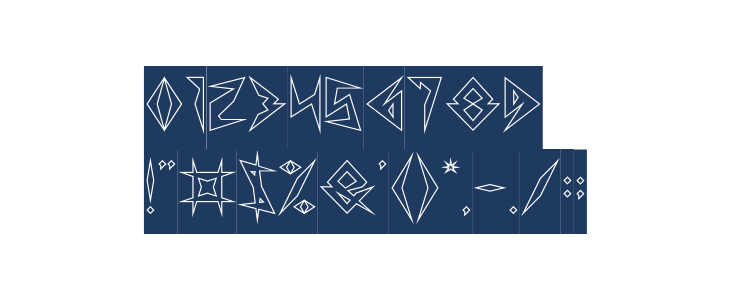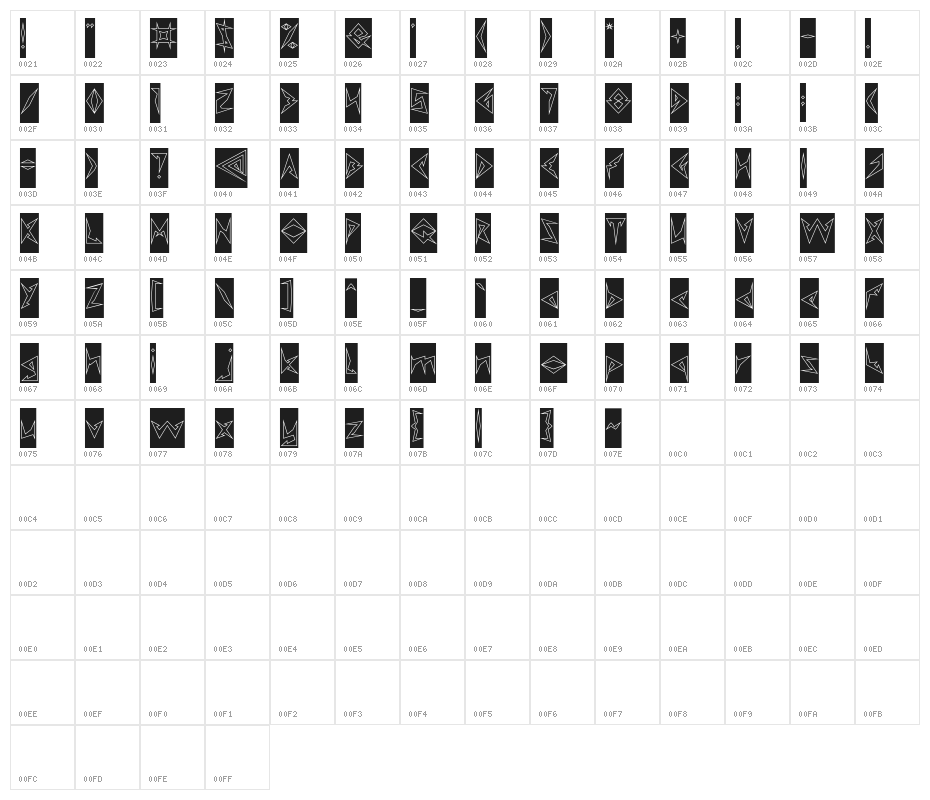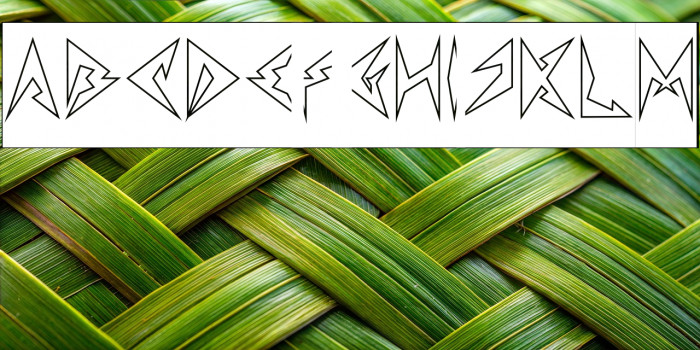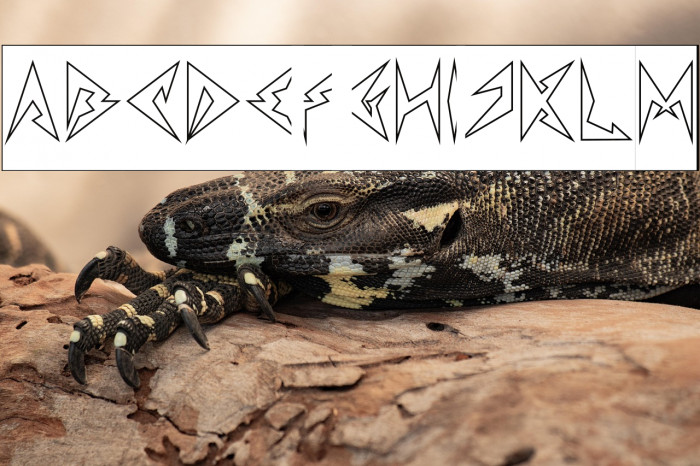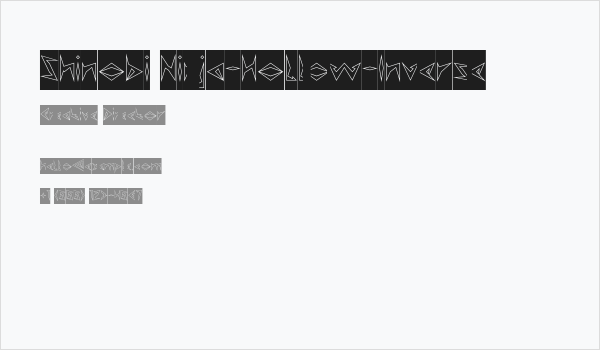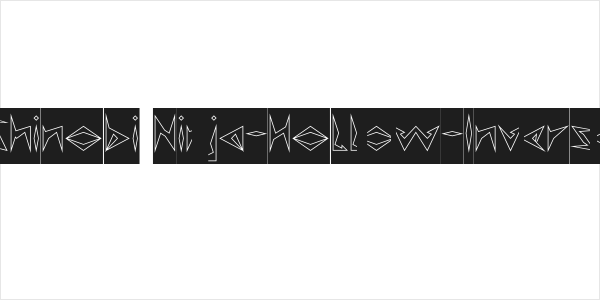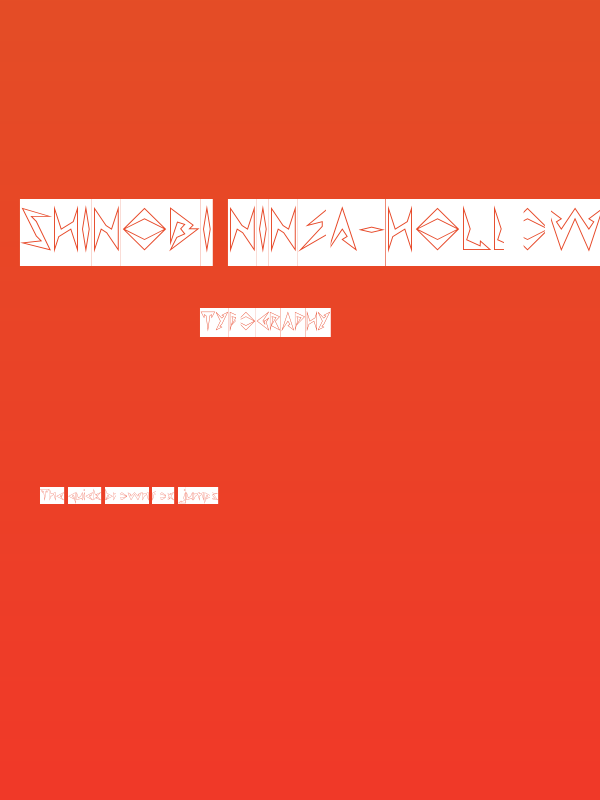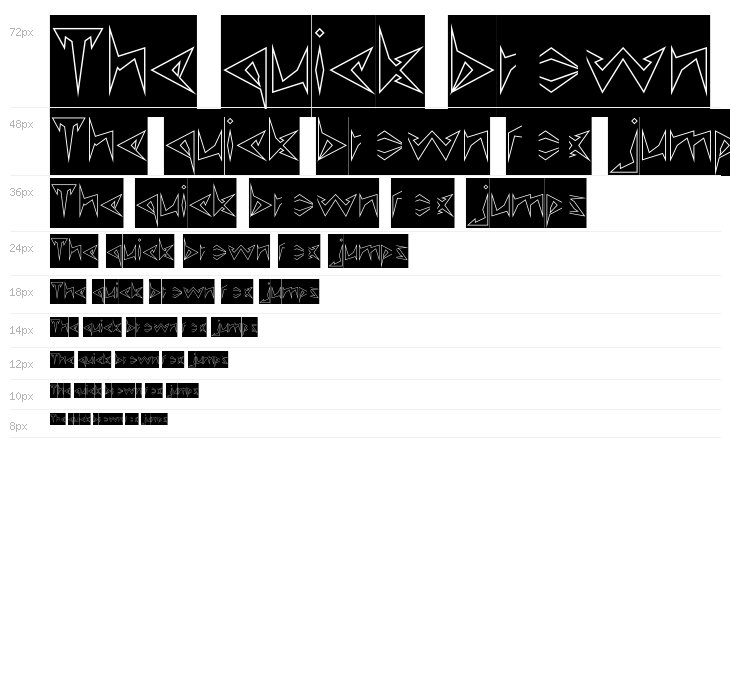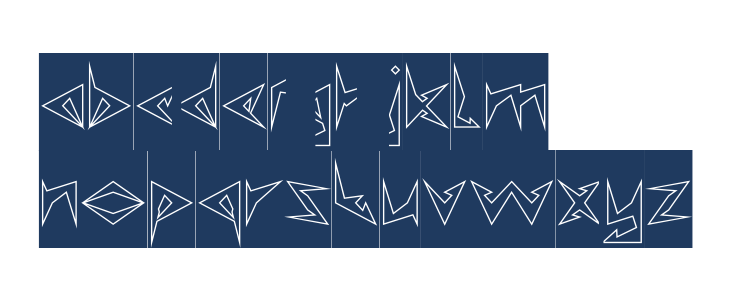
Shinobi Ninja-Hollow-Inverse Font
Shinobi Ninja-Hollow-Inverse Description
This font features a striking, angular design with sharp edges and geometric shapes, creating a dynamic and edgy appearance. The characters are hollow, with a consistent line thickness that forms the outlines of each letter and number. The style is reminiscent of ninja or samurai aesthetics, with a modern twist that makes it stand out. The uppercase and lowercase letters maintain a cohesive look, while the numbers and special characters follow the same angular theme. This font is ideal for projects that require a bold and unconventional style.
| Proposed Projects | Ideal for video game titles, movie posters, album covers, or any project needing a bold, edgy look. |